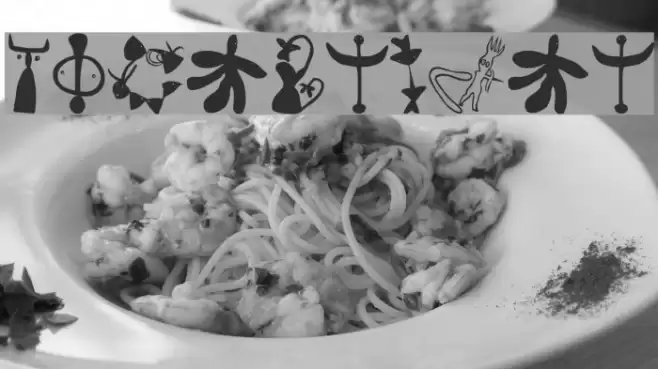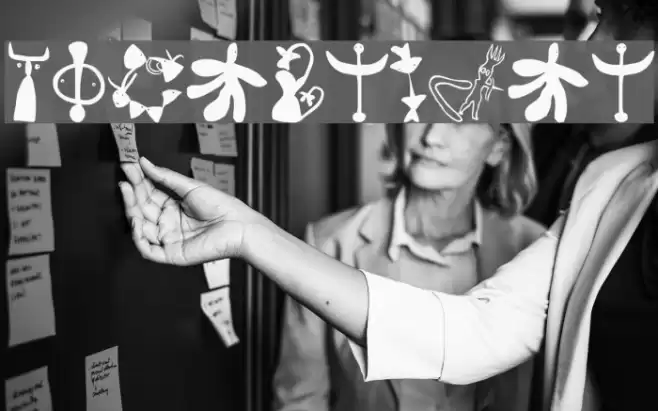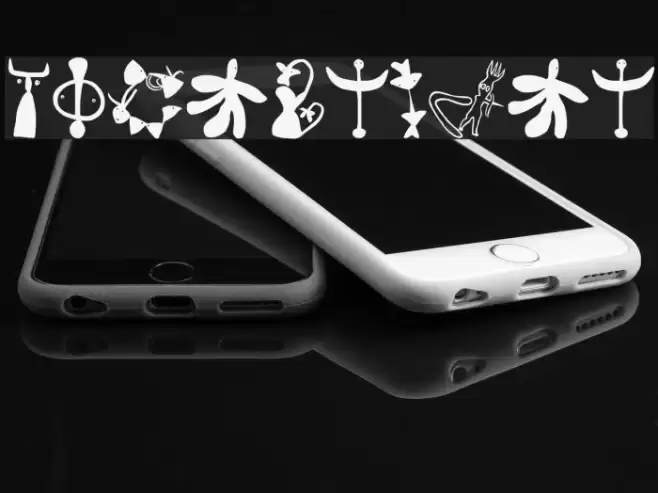
EthnoSigns Font
EthnoSigns Description
A highly decorative and illustrative typeface inspired by ancient petroglyphs and ethnographic symbols, featuring pictorial glyphs that resemble human figures, animals, and abstract motifs. Each character is unique and visually complex, evoking a sense of historical storytelling and cultural heritage.
Pictorial, ethnographic font with illustrative, symbolic glyphs from Uncategorized fonts.
- Proposed Projects: Cultural posters, museum exhibits, educational materials, themed branding, art projects.
- Overall Style: Decorative, Ethnographic, Artistic
- Use Case: Logos, Posters, Artworks, Thematic Titles